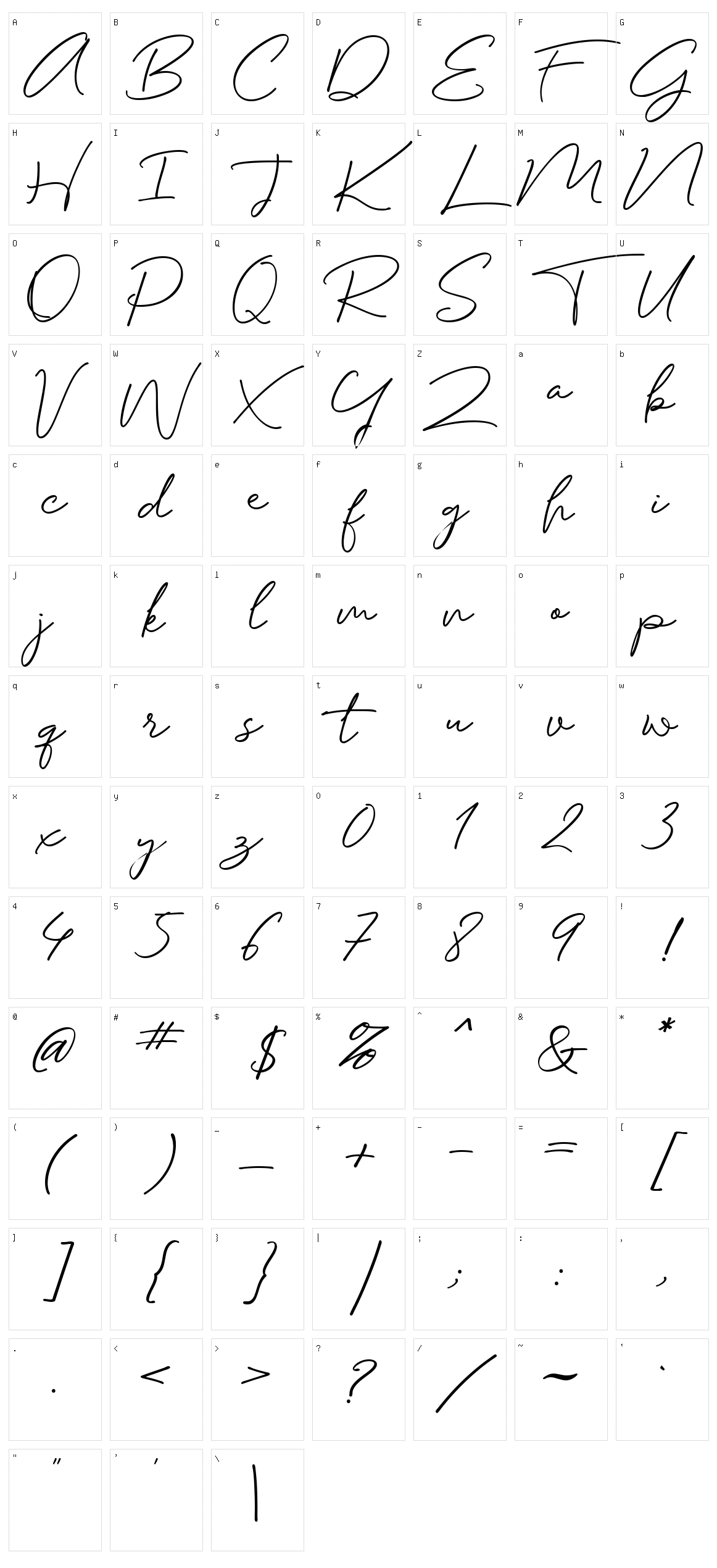
The free font Hosperity is carefully designed by Rinaldo Hasibuan, showcasing a thoughtful balance of creativity and usability and falls under the Script font style. When you download the ZIP file, it contains only 157.89 KB of font files, making it lightweight and quick to download. Please review the license details below to understand permitted usage and distribution rights. If license information is not available, we recommend using this font for personal projects only or contacting the author directly for commercial usage permissions.